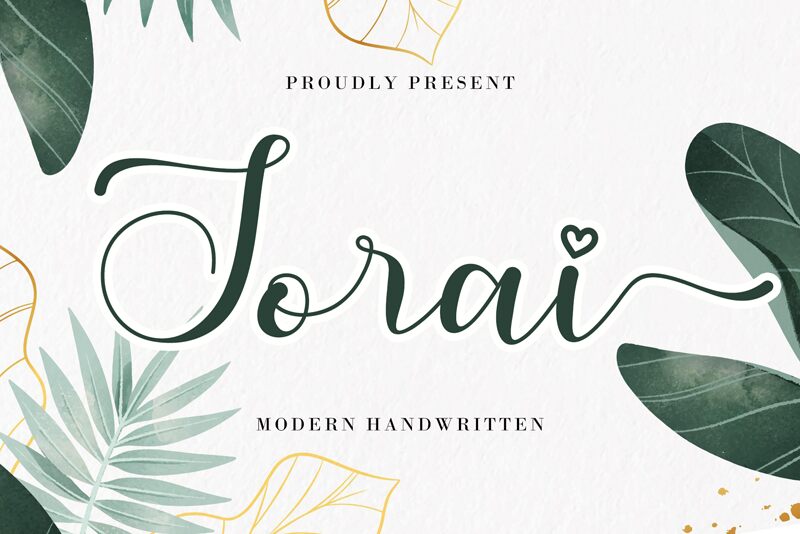
Sorai
Sorai, the exquisite creation by AEN Creative Studio, is a captivating modern calligraphy font. With its semi-light weight, Sorai strikes the perfect balance between elegance and legibility. This versatile typeface lends itself beautifully to diverse projects, from luxurious branding for high-end fashion boutiques to sophisticated wedding invitations. Its graceful curves and flowing strokes add a touch of refined artistry to any design. Whether you're crafting stylish logos or designing elegant packaging, Sorai will effortlessly elevate your projects with its unique blend of modernity and classic charm.